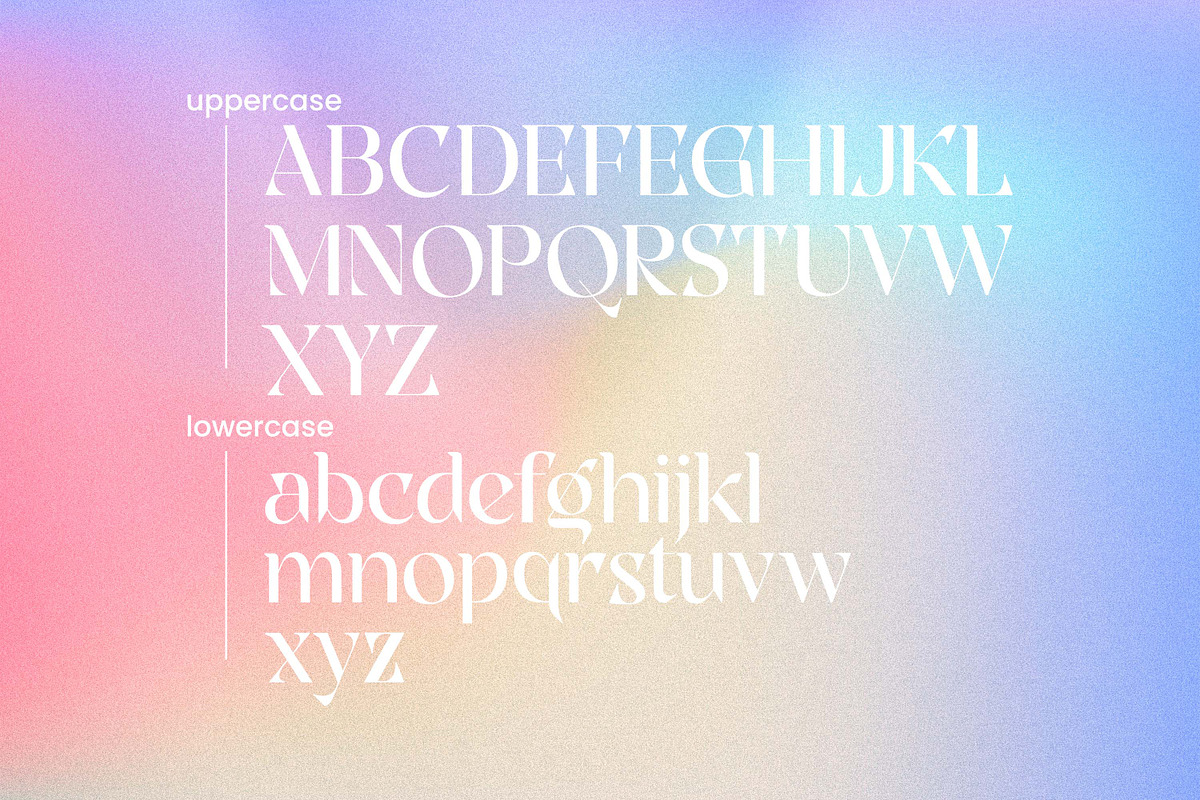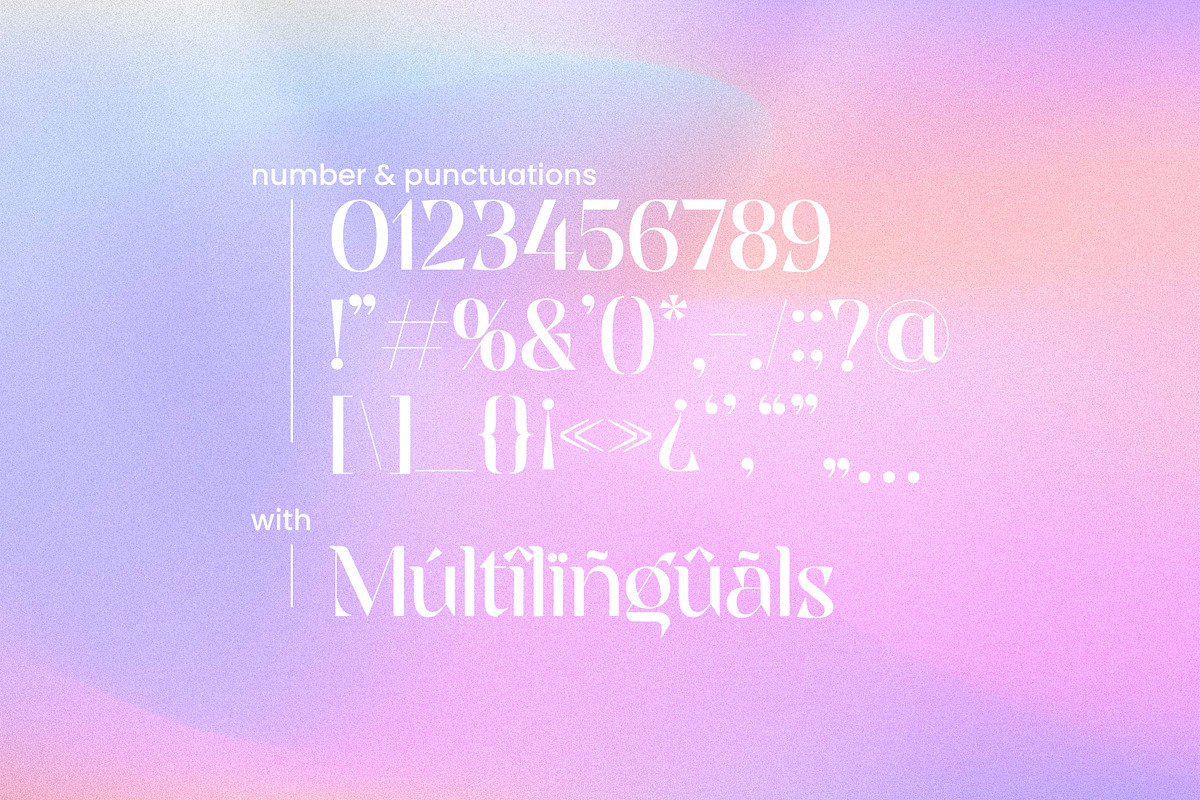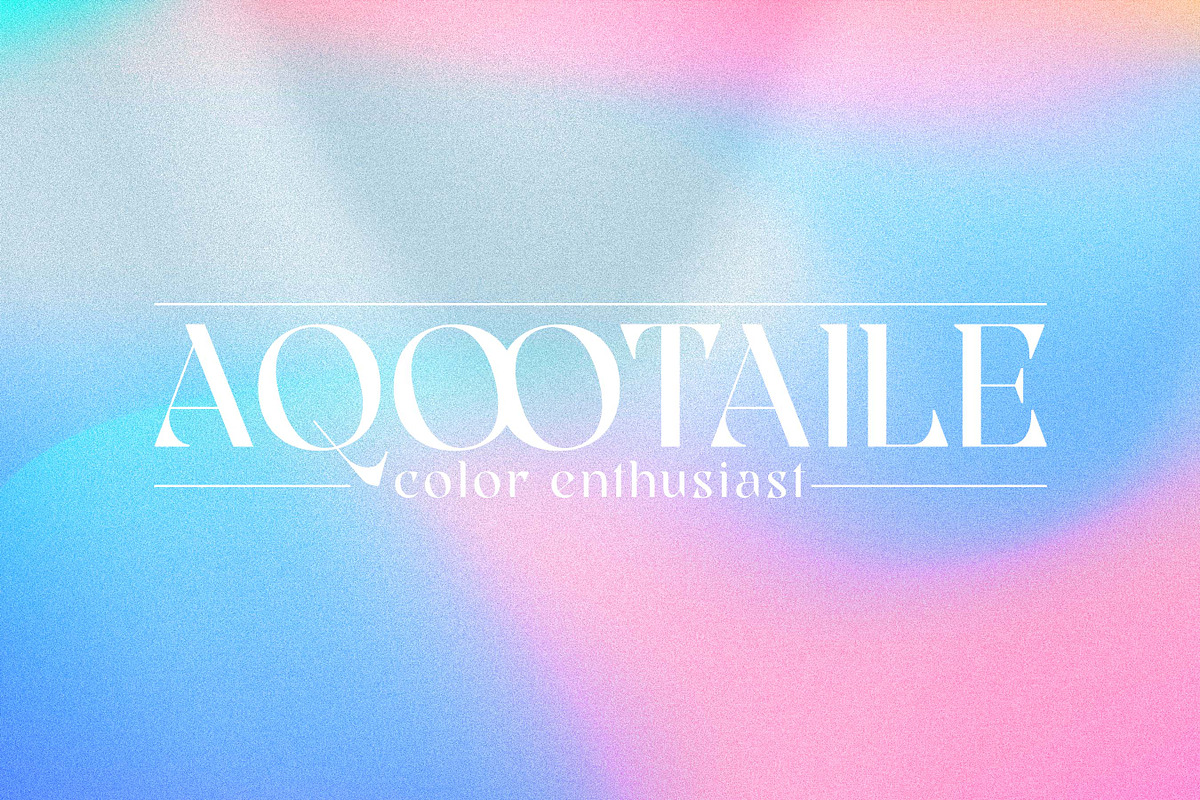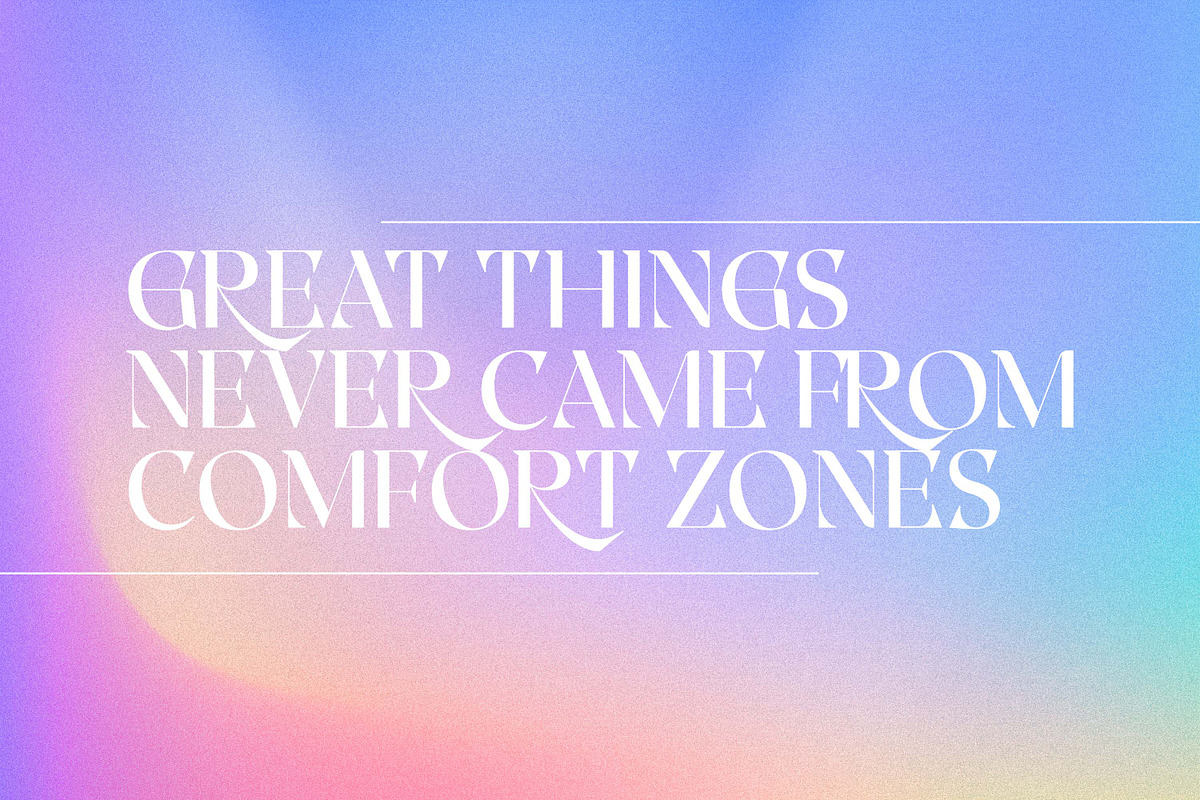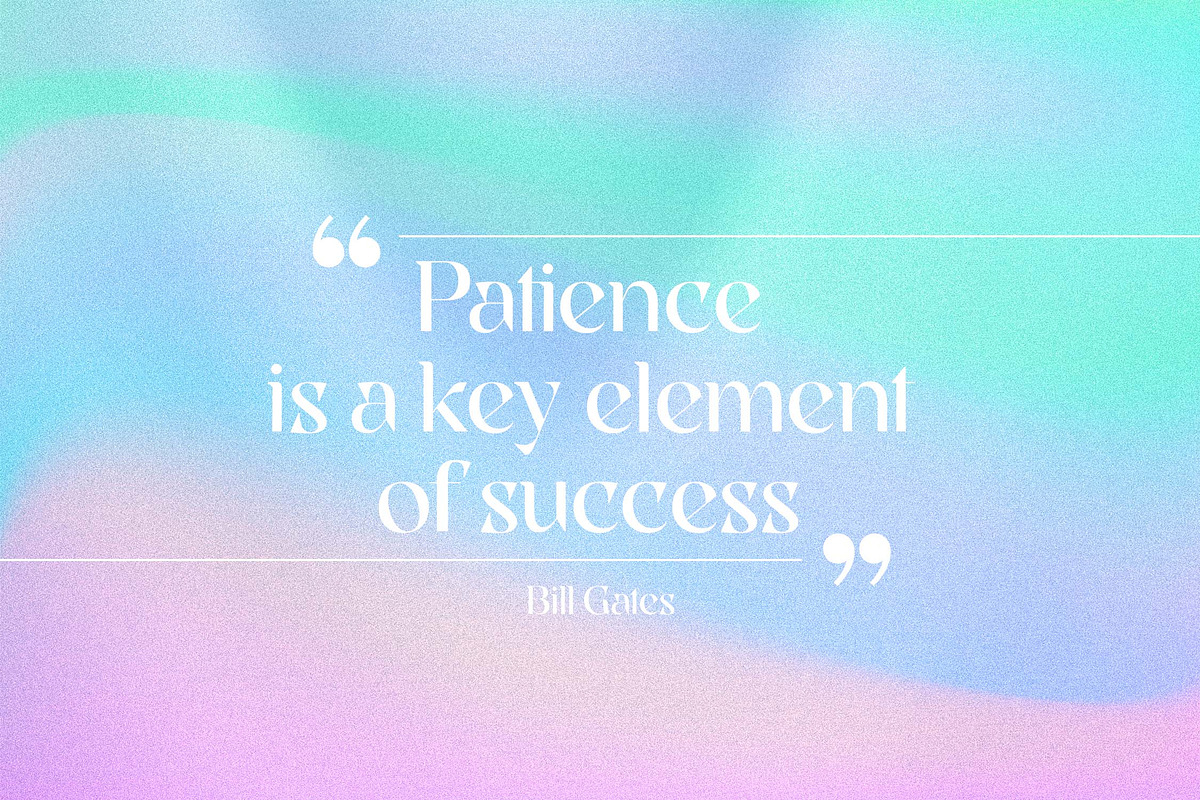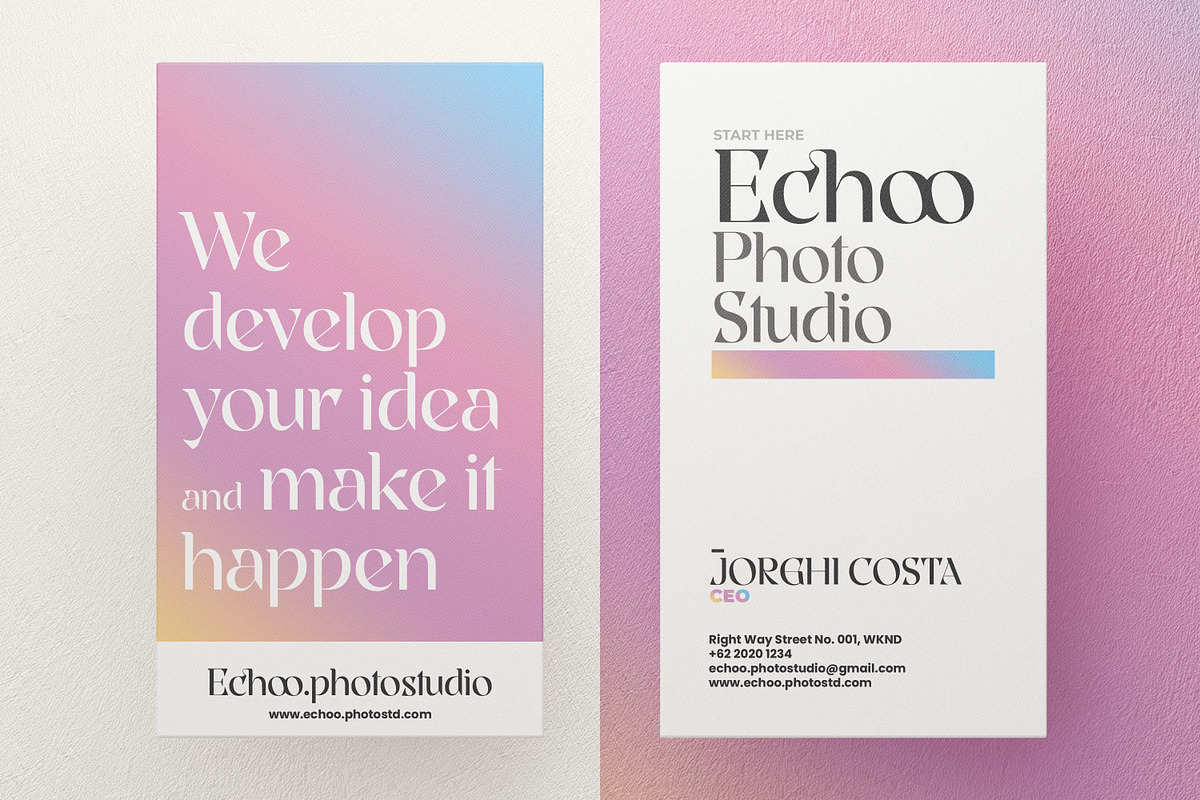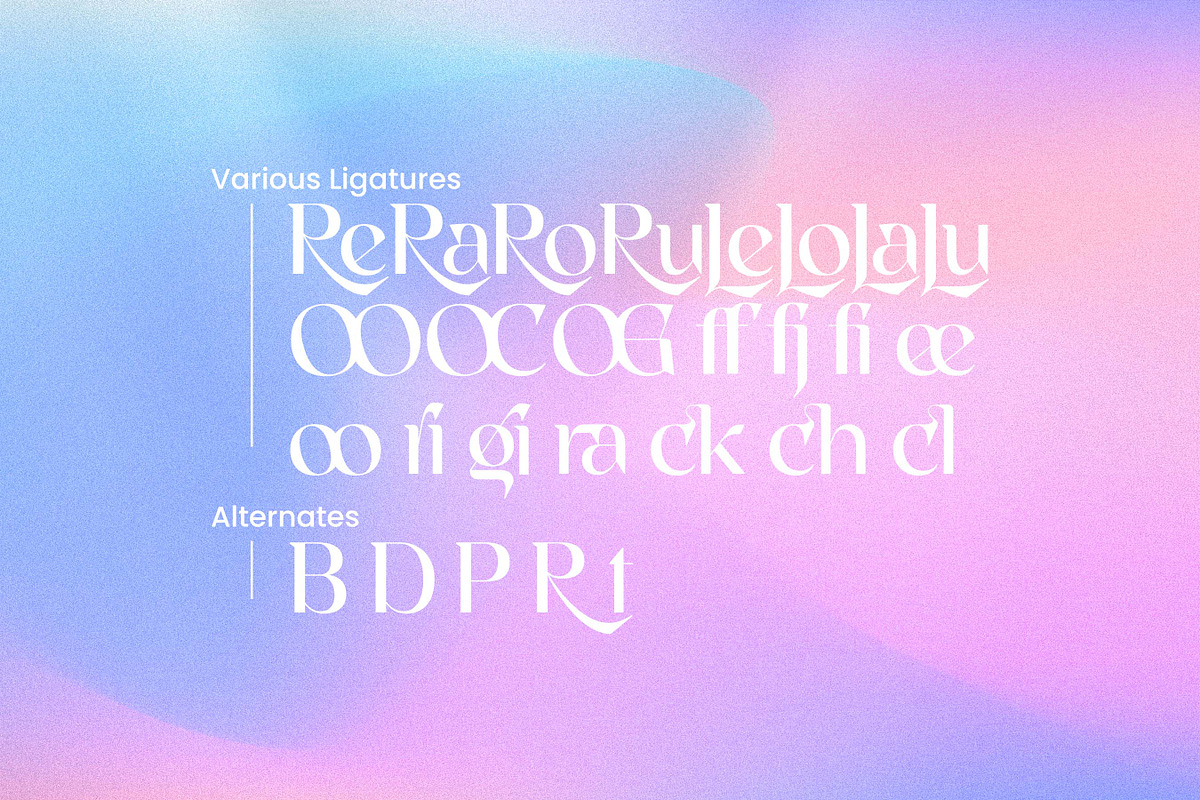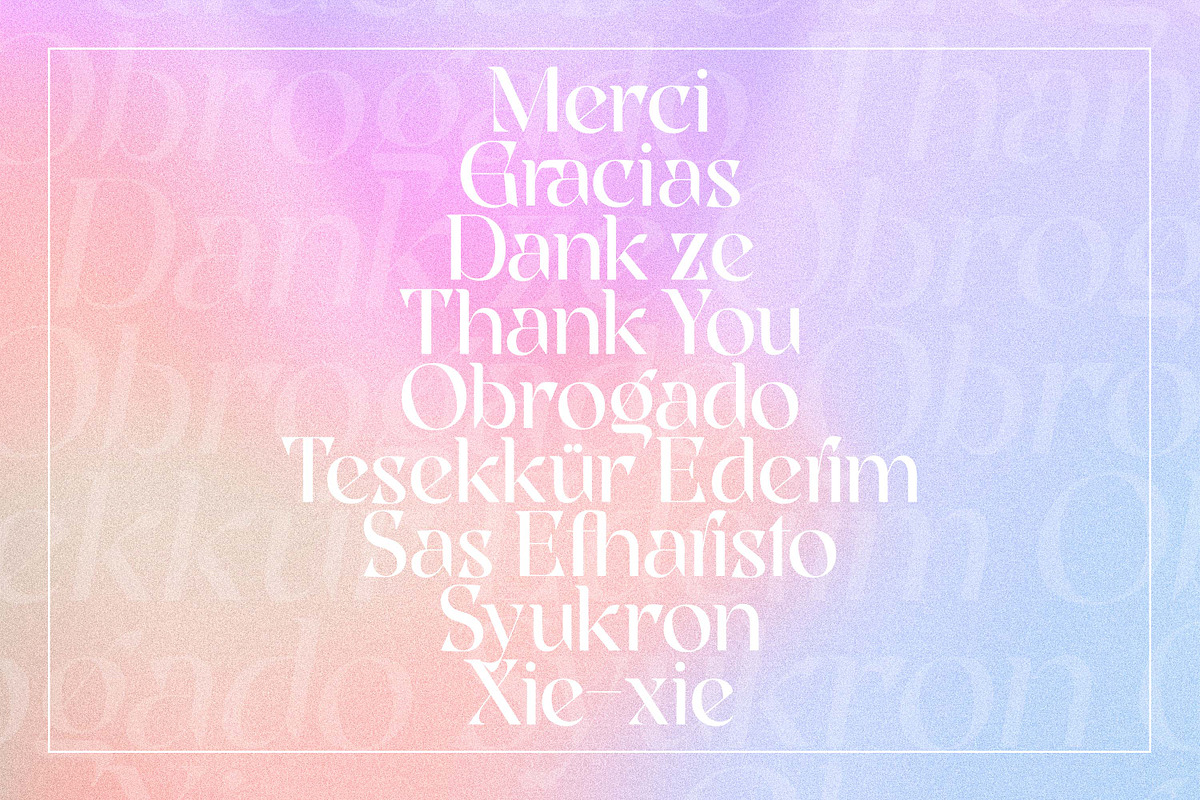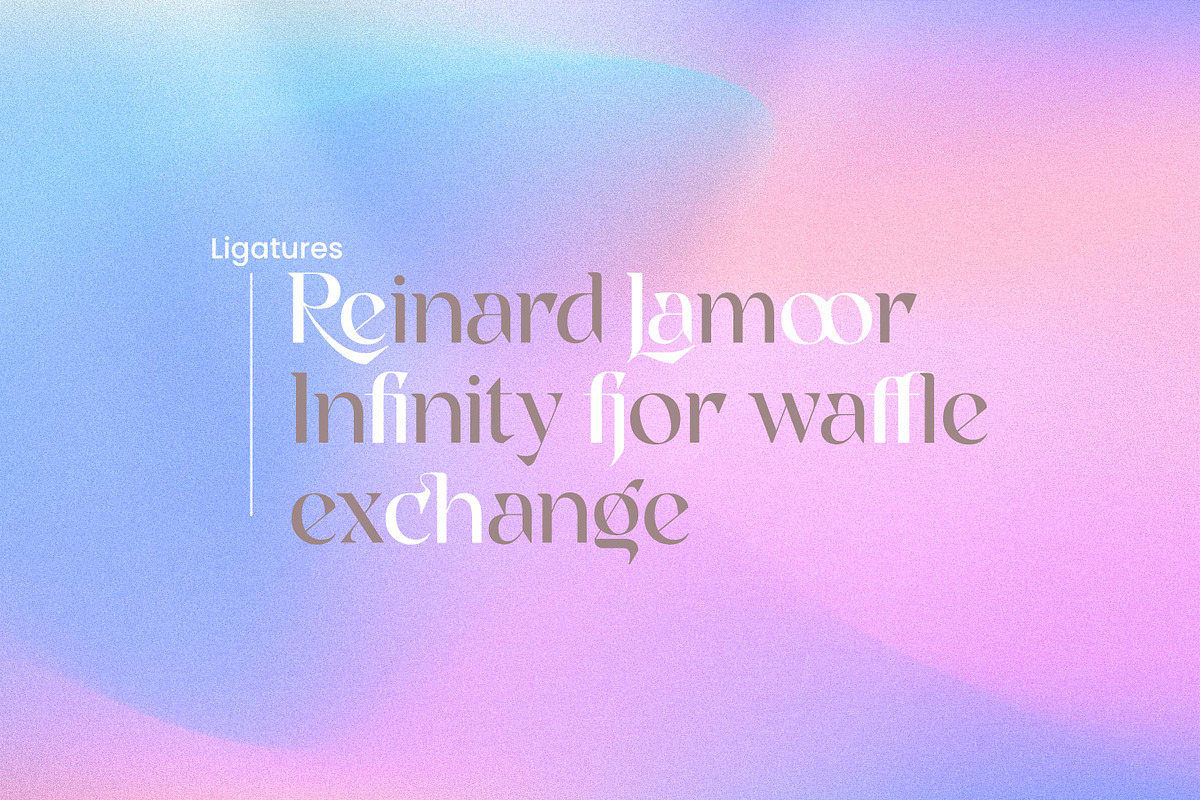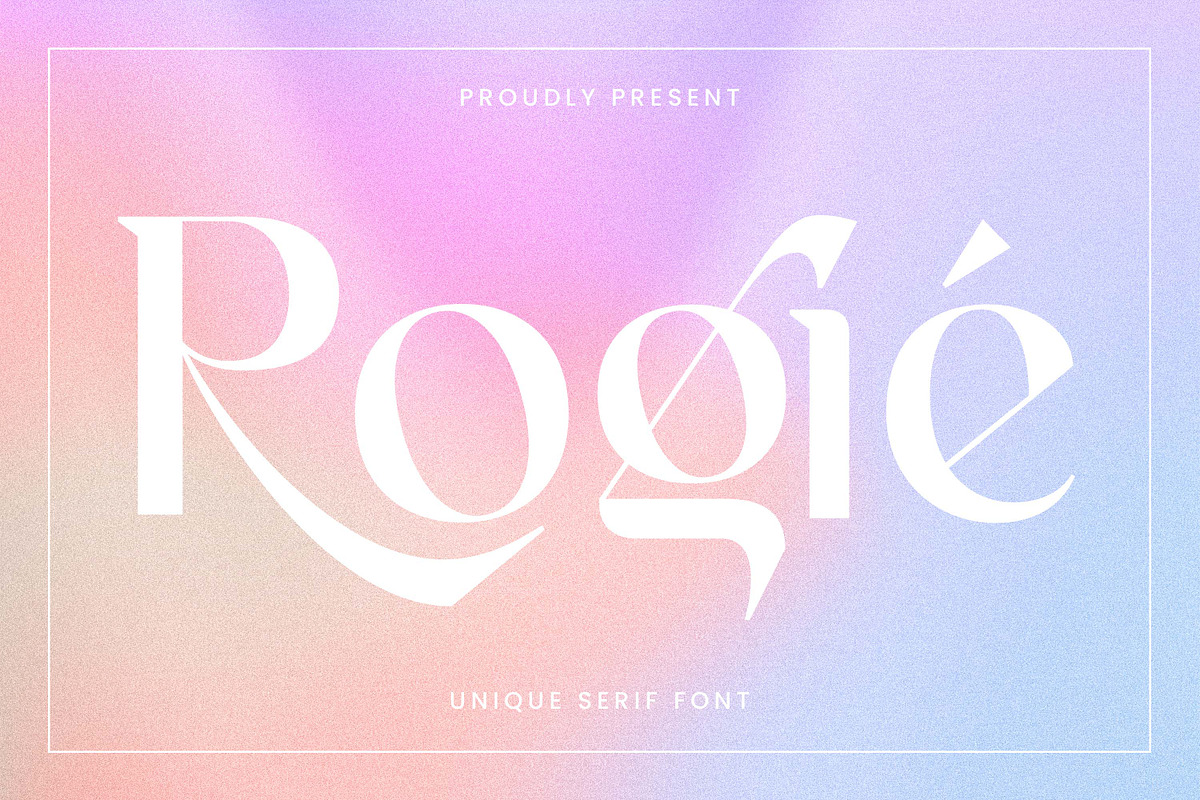
Rogie - Modern Display Serif
Rogie - Modern Display Serif is an elegant and unique font that uses ligatures to smoothly link letters. Perfect for adding a unique twist to word-mark logos. Rogie - Ligature has 22 ligatures & 5 Alternate as well making it super fantastic. Ligature can be turned off if required standard writing needs. What's Included :